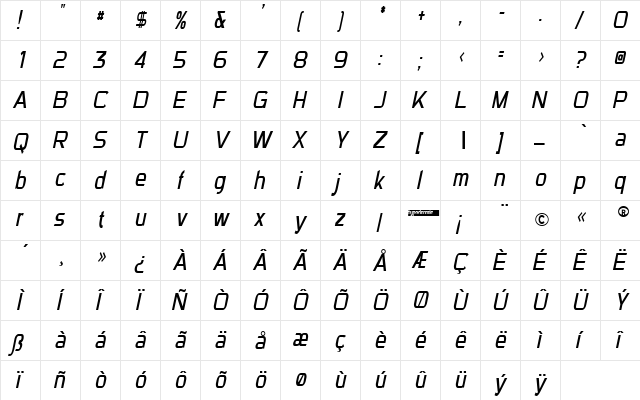
Sui Generis Condensed Light Italic
Design Context for Sui Generis Condensed Light Typeface
Sui Generis Condensed Light is a composed and adaptable typeface that performs quietly and consistently across a wide range of design contexts. The slanted form adds forward momentum and visual energy. The delicate stroke weight brings airiness and refinement to layouts. Its narrow stance lets it pack a punch even in space-constrained designs.
Pro Tip: Try Sui Generis Condensed Light for annotation and caption copy alongside an upright companion — the contrast in angle creates a dynamic but ordered typographic system.